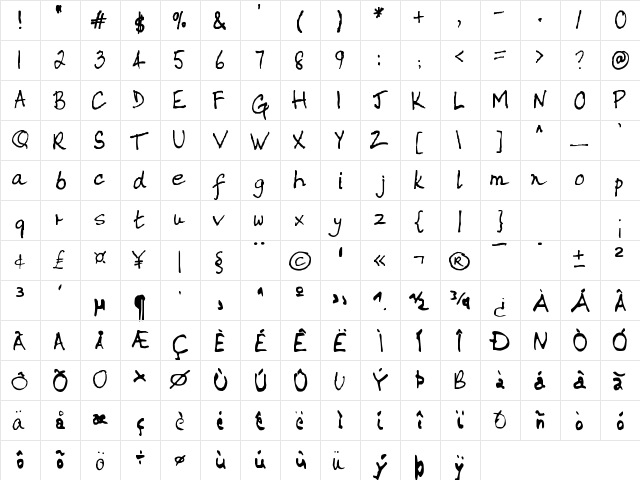
QEGerryHughe Regula Font Preview
QEGerryHughe Regula
QEGerryHughe Regula Font Details
Design Context for QEGerryHughe Typeface
QEGerryHughe is a composed and adaptable typeface that performs quietly and consistently across a wide range of design contexts.